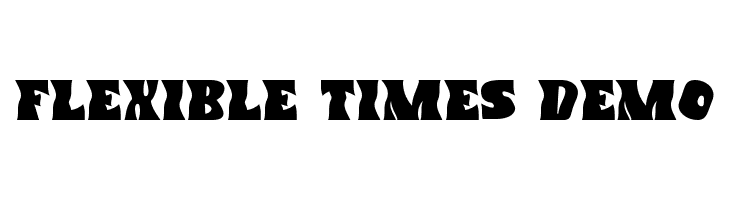
A bold, angular font with a dynamic, geometric style.
A whimsical and elegant script font with intricate loops and swirls.
A playful, decorative font with bold, rounded strokes and artistic flourishes.
A dynamic, expressive handwritten font with fluid, cursive letterforms.
A playful, handwritten font with whimsical and decorative elements.
A bold, modern font with elongated, narrow characters and a distinctive geometric style.
A bold, industrial font with blocky, geometric characters and rounded edges.
A bold, italicized font with a futuristic halftone effect.
An elegant, flowing script font with graceful loops and ornate uppercase letters.